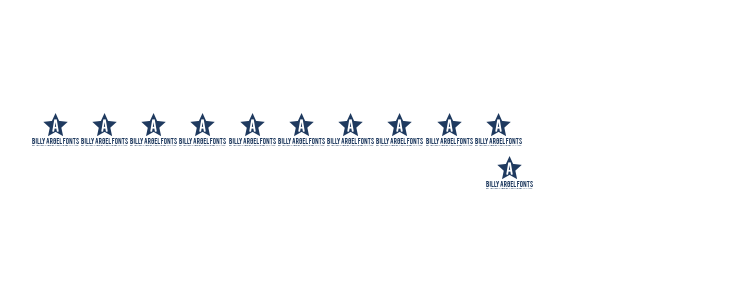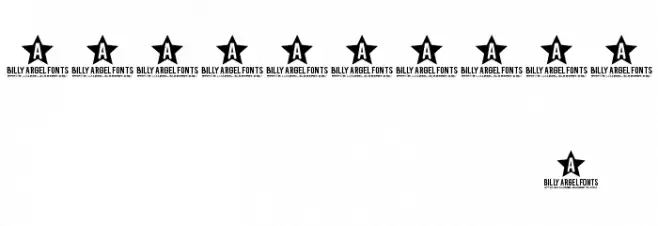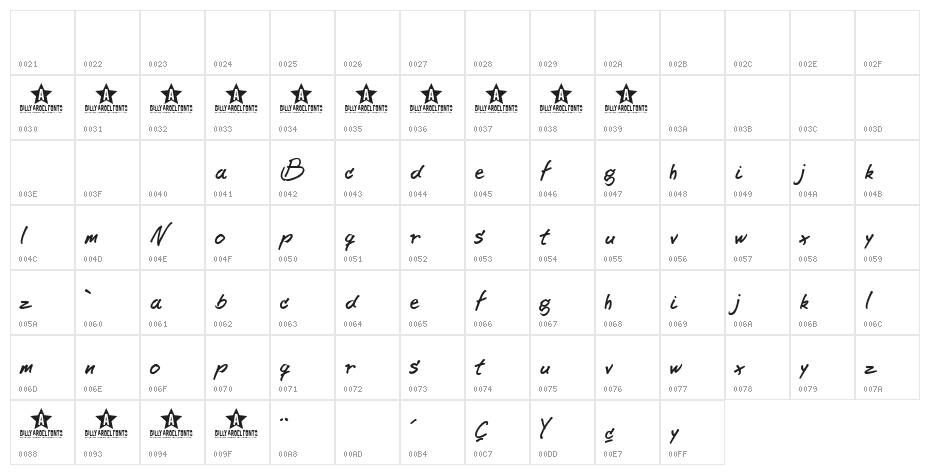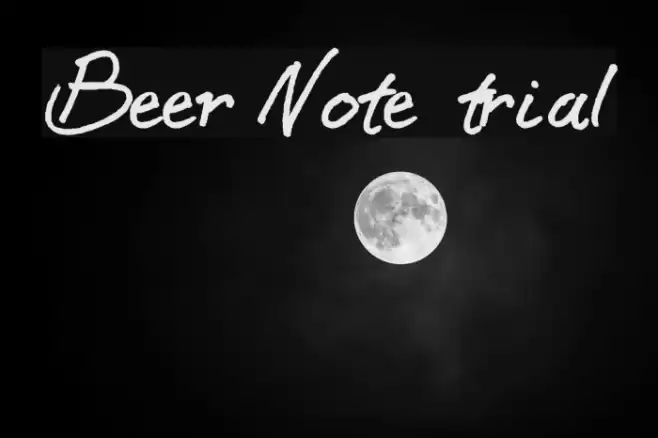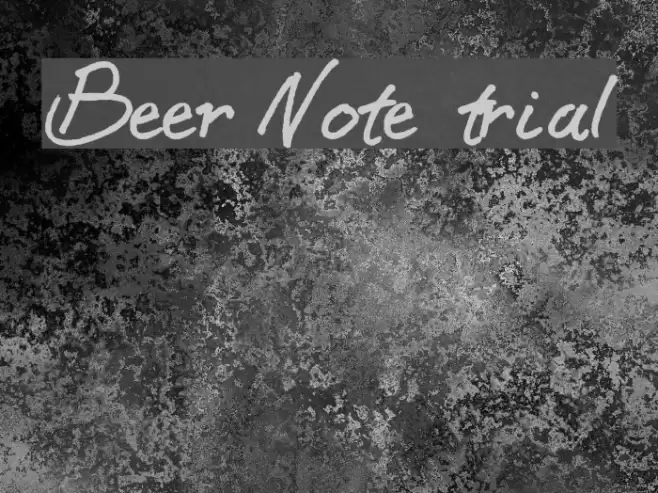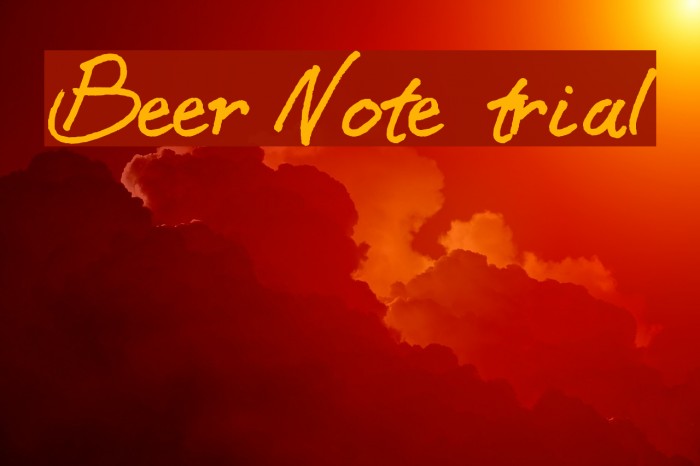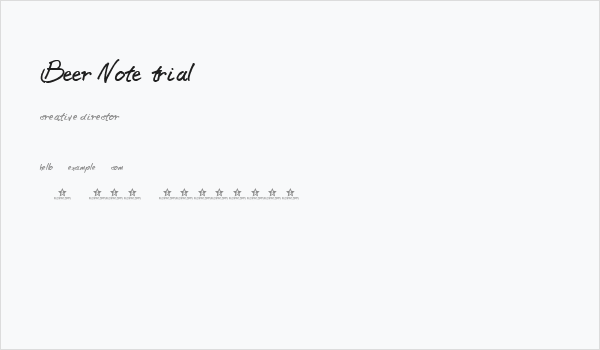
BEER NOTE TRIAL Font
BEER NOTE TRIAL Description
This font features a handwritten, cursive style with a casual and flowing appearance. The letters are slightly slanted, giving it a dynamic and lively feel. The strokes are smooth and connected, with some characters exhibiting unique loops and flourishes, adding to its charm. It maintains a consistent stroke width throughout, which contributes to its readability despite the decorative nature. The font exudes a personal touch, reminiscent of quick, informal notes or letters.
Overall StyleCasual
Use CaseLogos, Invitations, Greeting Cards
Proposed ProjectsIdeal for personal notes, invitations, greeting cards, or any project requiring a personal, informal touch.